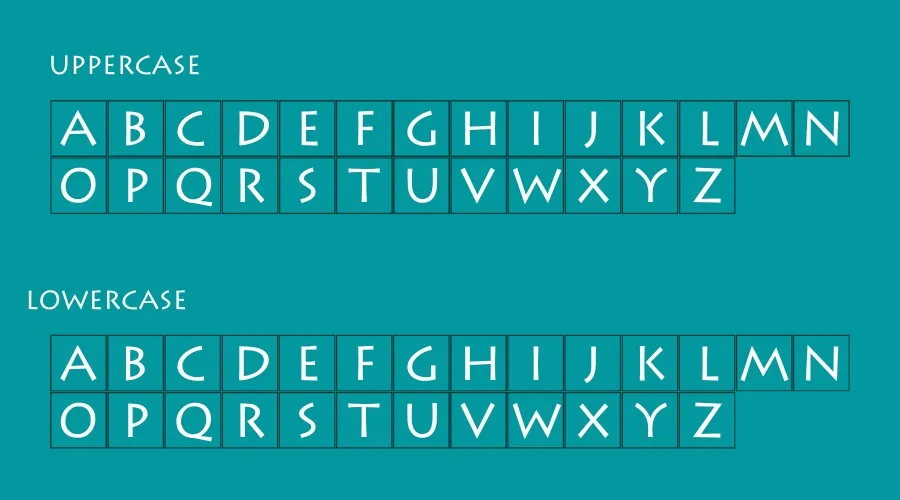
Liste Font
About Liste Font
The Liste font is a simple and fun typeface that is totally free on our website. This clean and modern font is perfect for all logos, branding, social media, and crafty DIY plan.
This typeface has more than once been used in film posters, emblems, and photoshop designs, and it is also a popular choice for designers who want to create designs related to regulations.
Suitable for logo designs, this beautiful typeface features fancy-style letters. This is an excellent choice for gaming logos and video titles. Many types of stylish logo designs can be created using this unique typeface.
By pairing this font with your designs, you can create imaginary and wonderful designs. In addition to creating an eye-catching outcome, it also gives your project an interesting appearance.
| Font Name: | Liste Font |
| Glyph Count: | 383 characters |
| Kerning Pairs: | 549 |